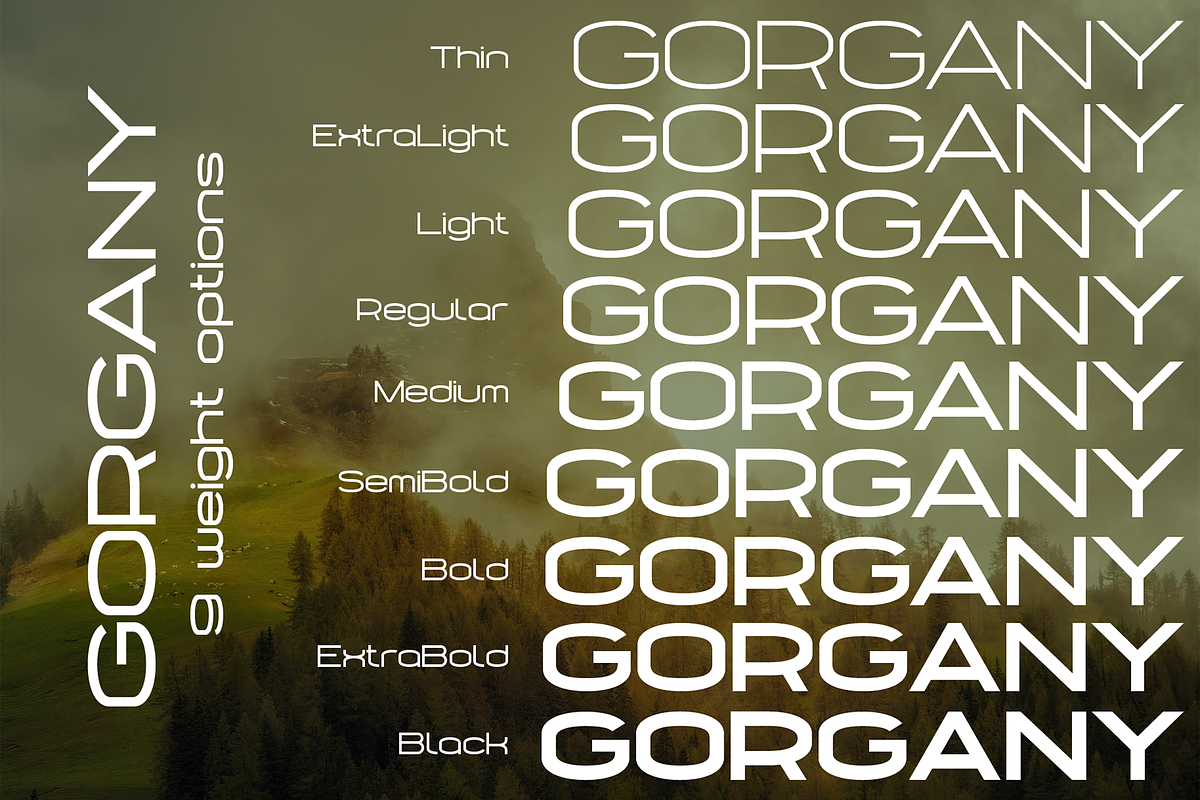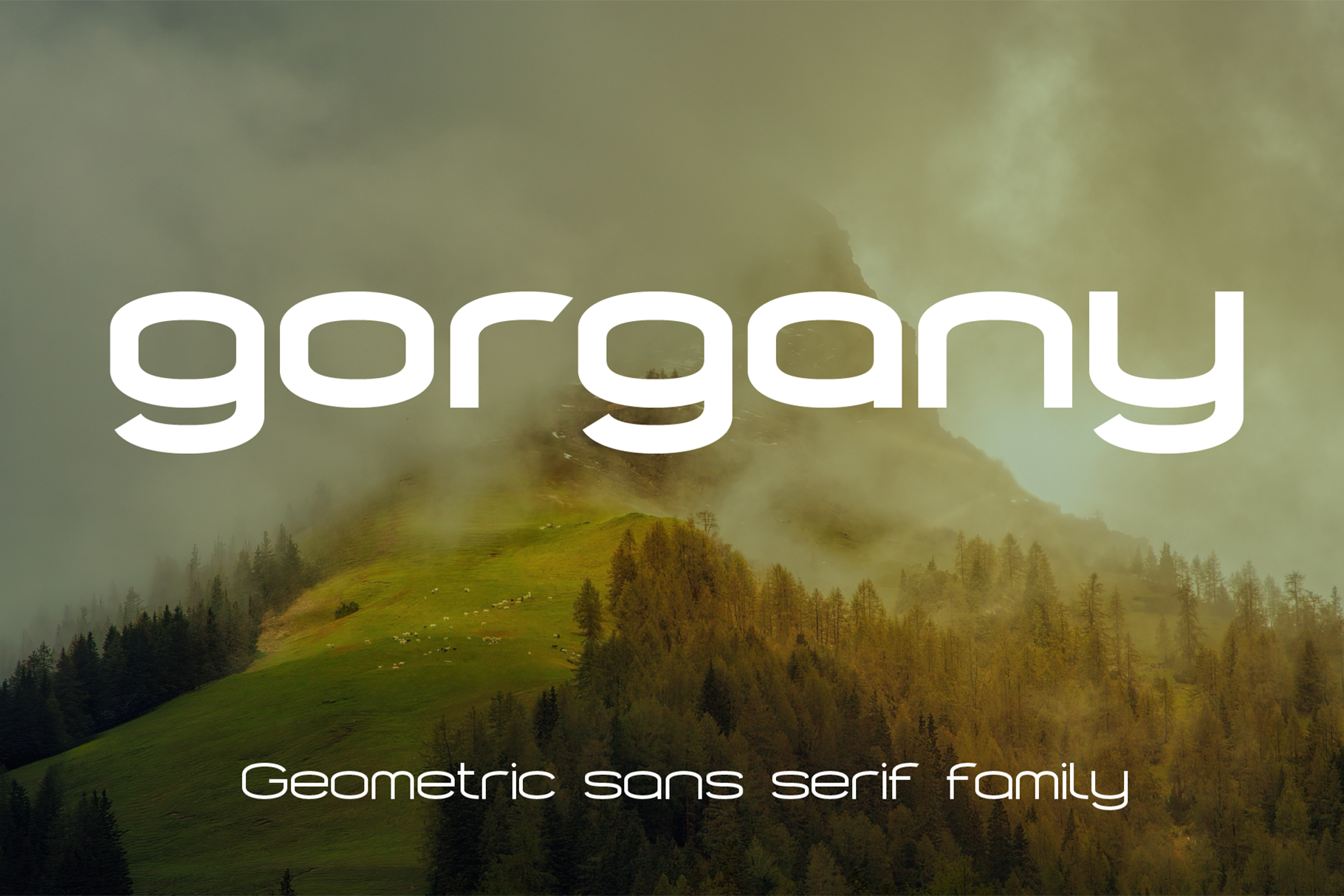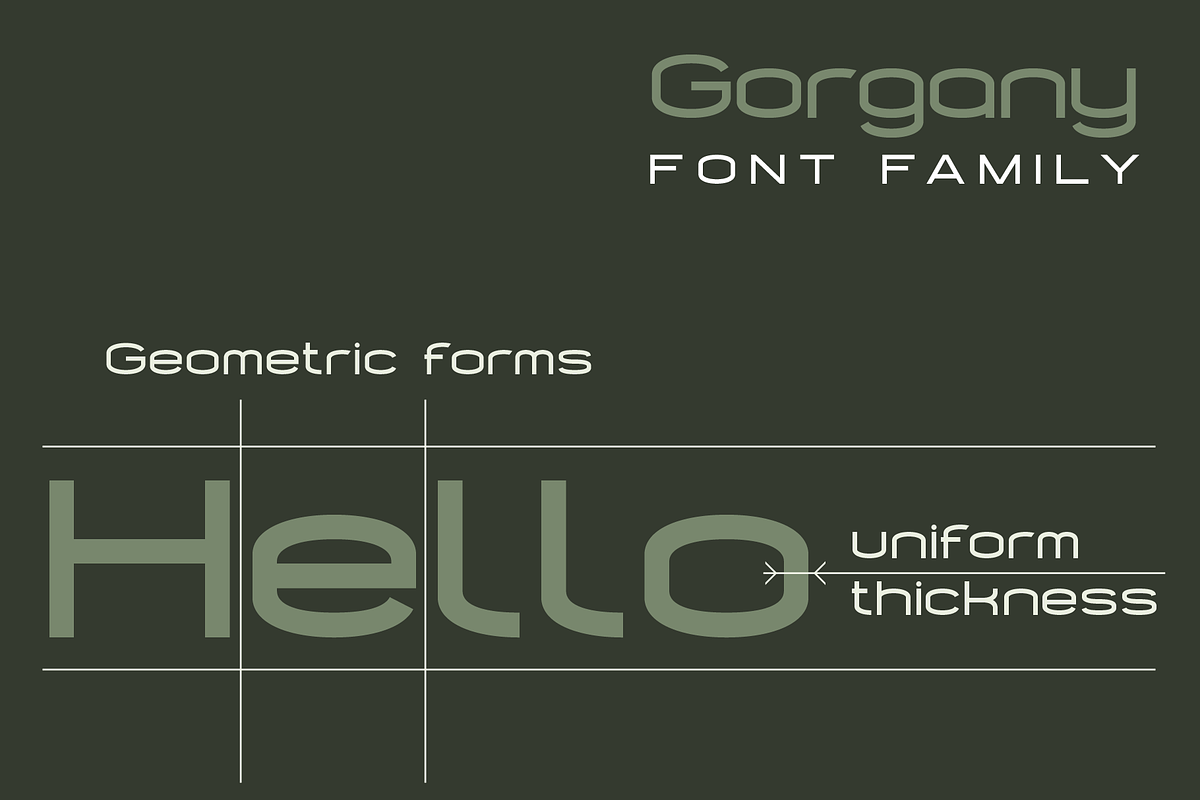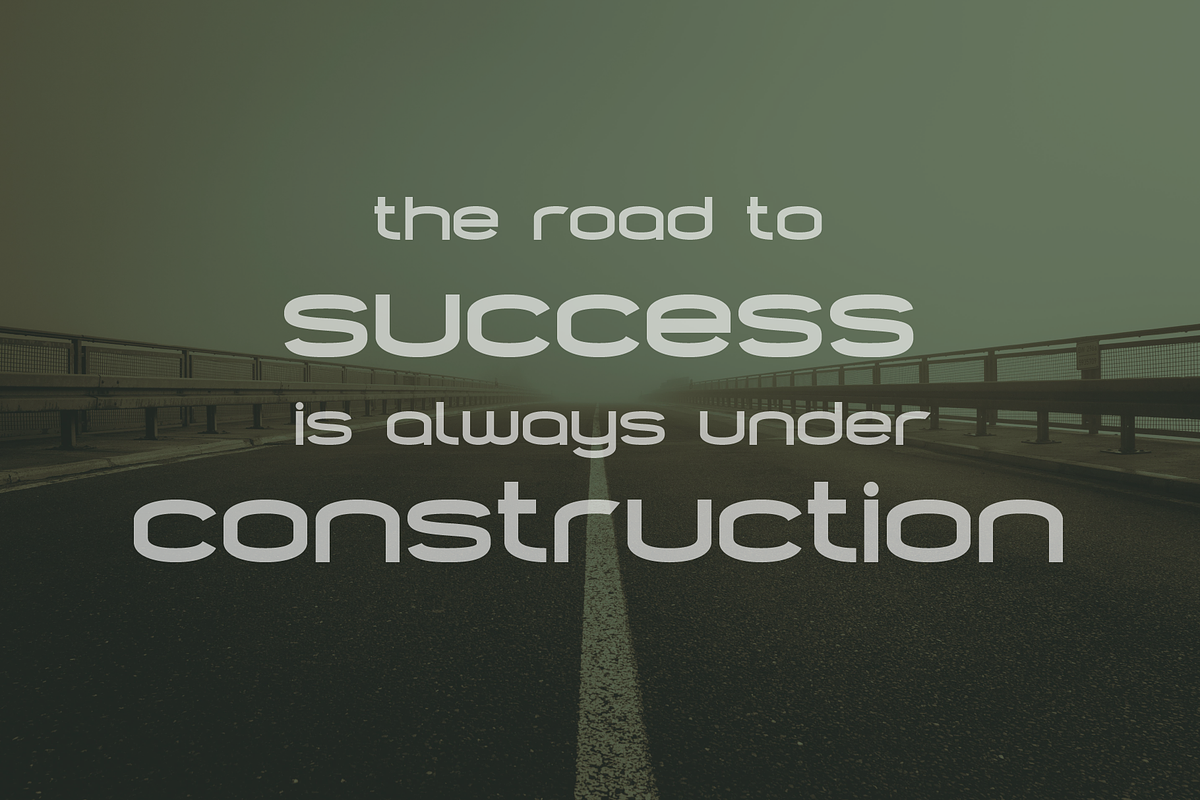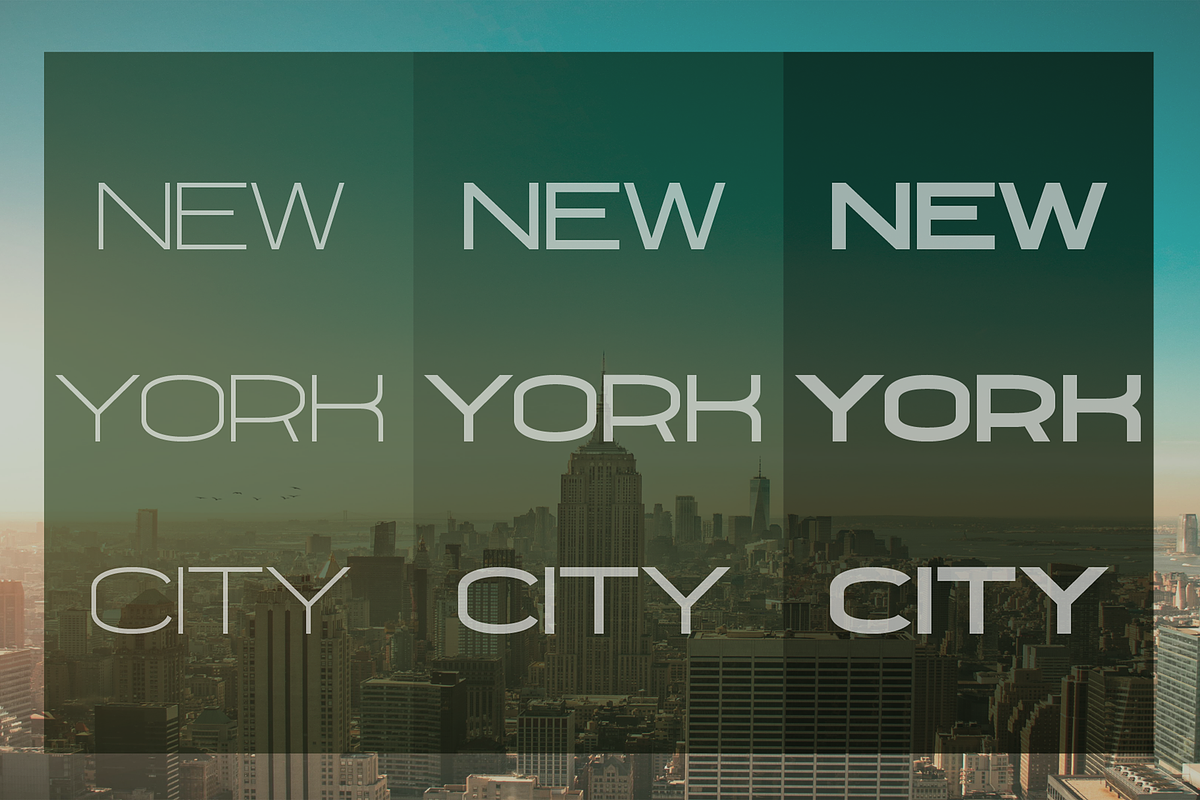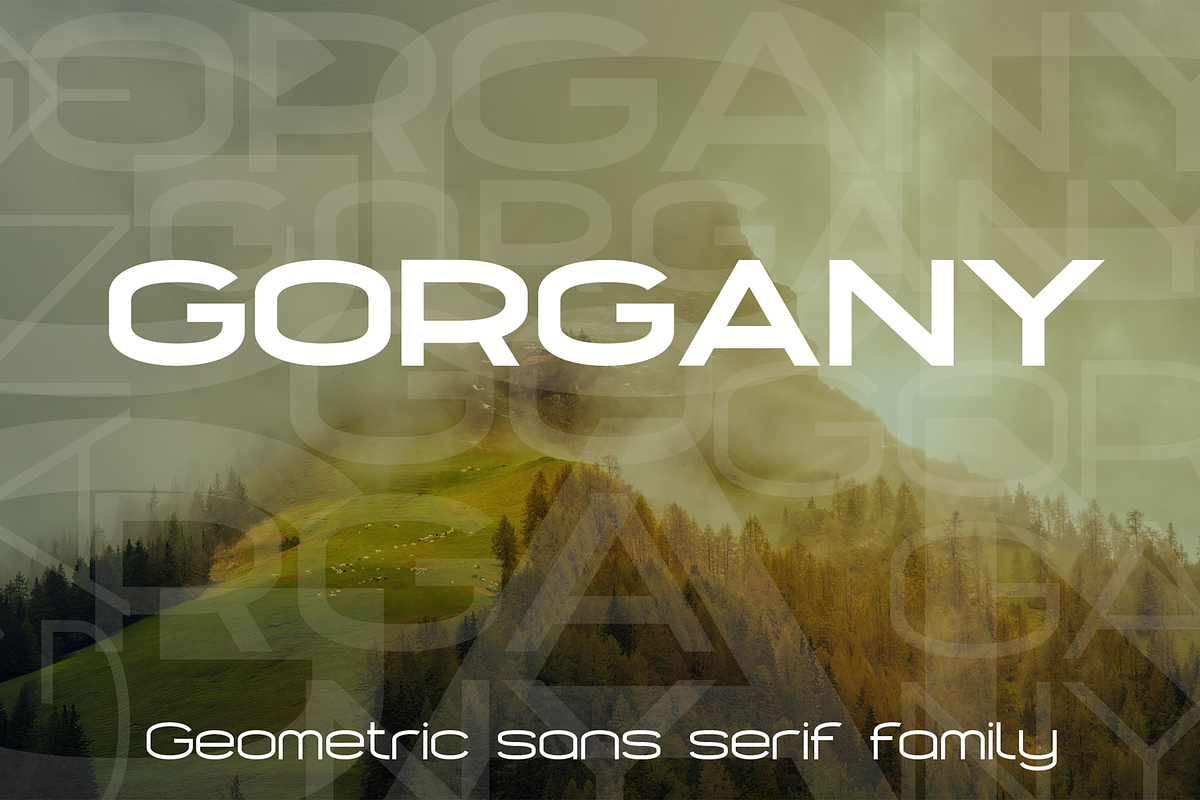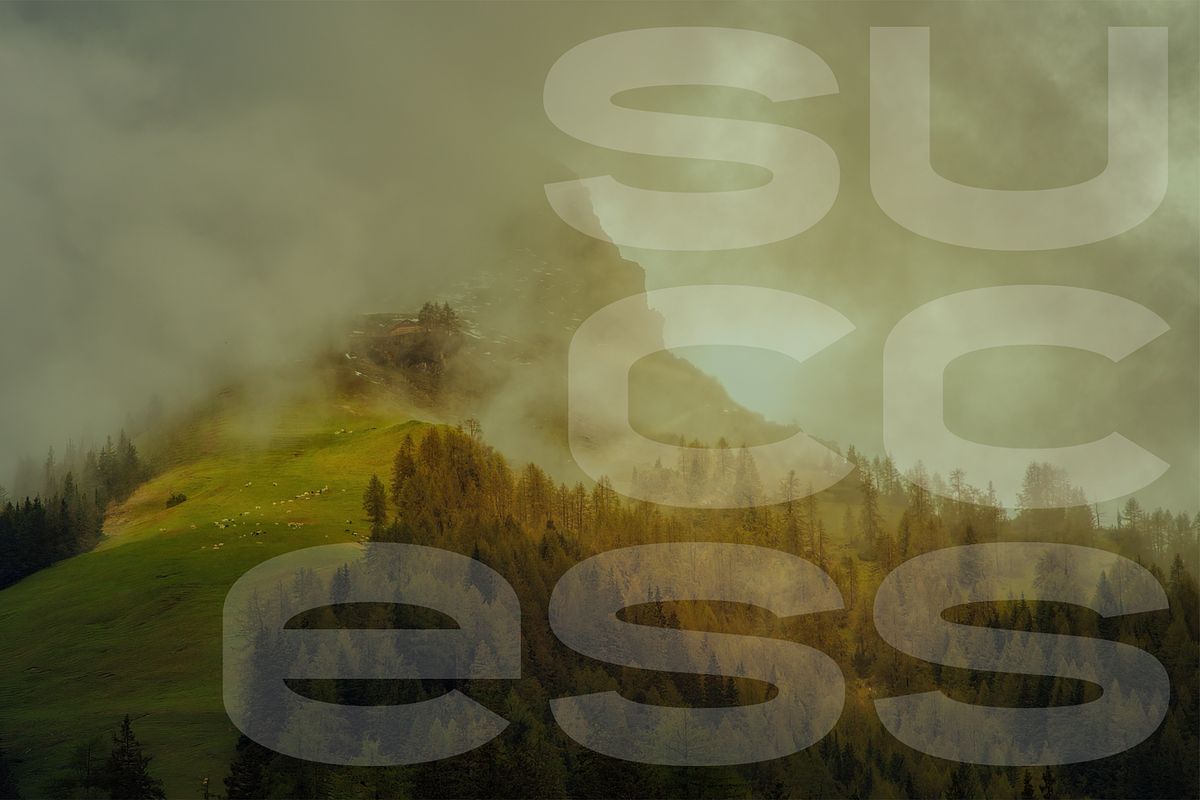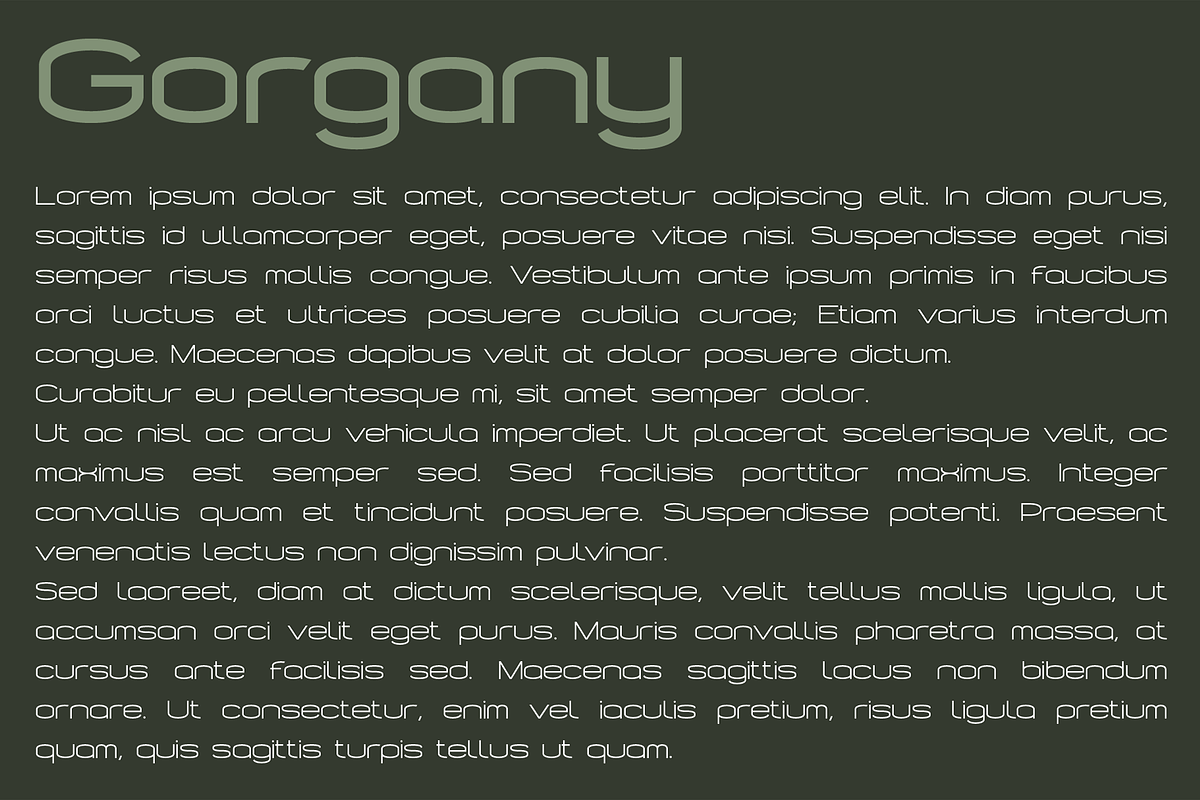
Gorgany font family
GORGANY is a expanded modern sans serif geometric font, includes upper and lower case characters, Latin, Cyrillic, Latin Eastern Europe, Turkish, Baltic and other, 500+ symbols.
GORGANY family have the 9 types of thickness, divided into 3 subgroups (according to thickness - S(small), M (middle), B (bold)), and have the 3 types of thickness in each subgroup.
GORGANY fonts will be useful in developing a brand, creating posters and other graphic products, and for word processing.